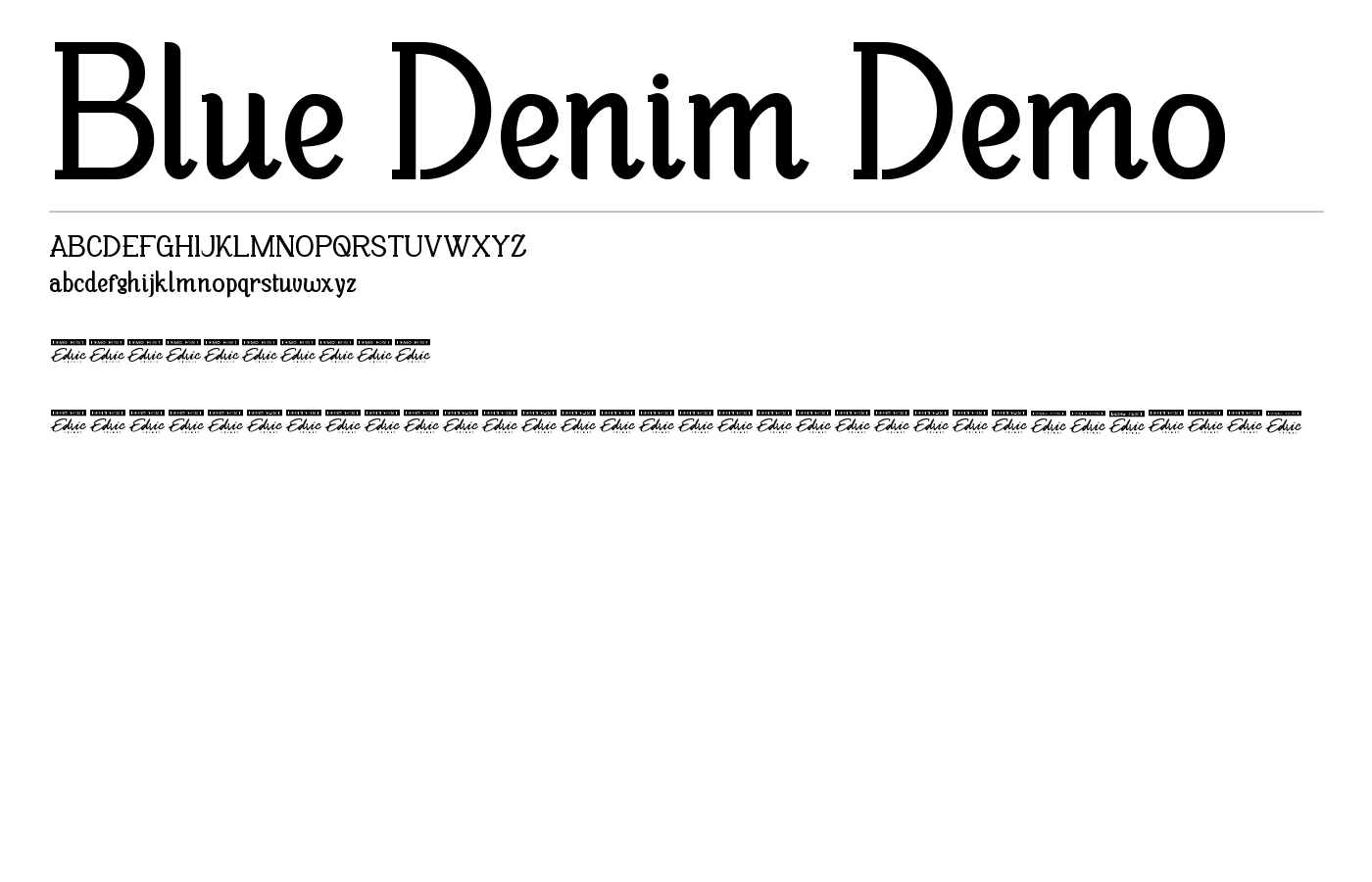
Blue Denim Demo is a stylish serif font featuring a unique blend of vintage charm and modern simplicity, characterized by its medium weight, normal width, and subtle stroke contrast. Its distinctive letterforms, such as the gently curved serifs and single-story lowercase letters, make it an excellent choice for editorial design, logos, and branding that seek a sophisticated yet approachable vibe. This font works well in headlines and display text where personality and clarity are key.
Blue Denim Demo Font
About Blue Denim Demo Font
| Font family | Blue Denim Demo Font |
| Designer | Shalsha & Suci Anita |